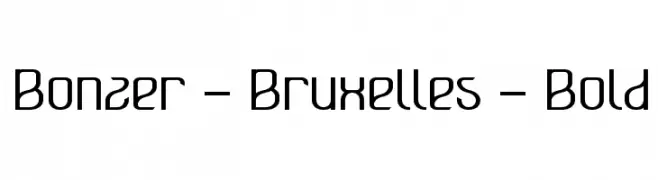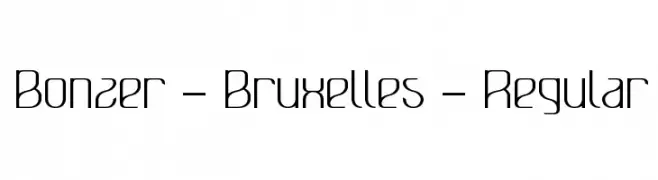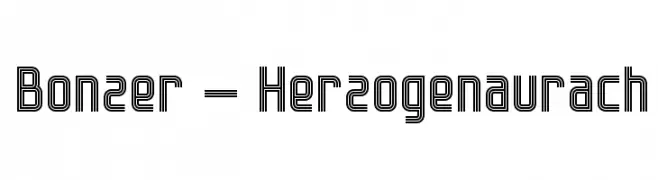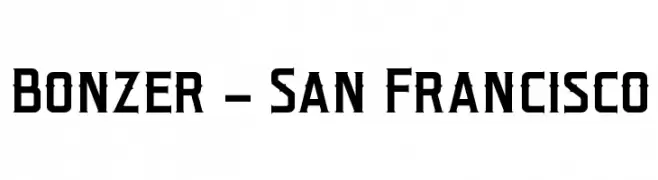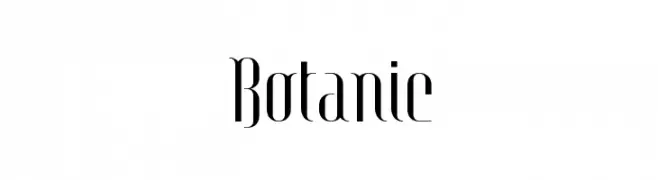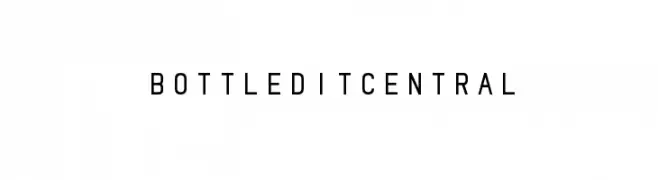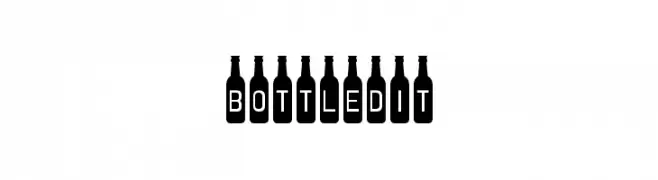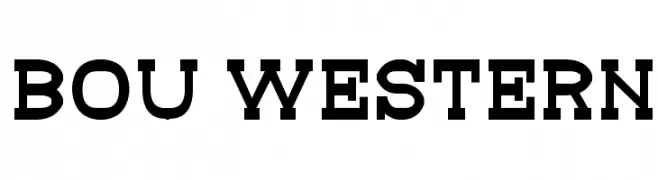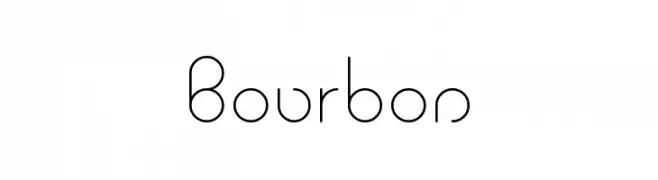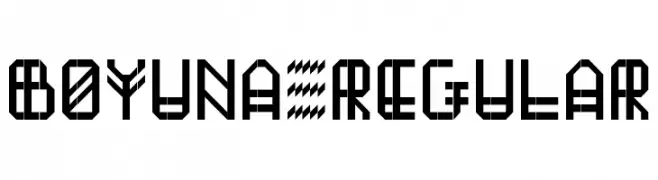
( Bonzer - Bonzer Herrbrecht - bonzer-concept.tumblr.com/ )
A bold, geometric font with a modern and balanced design.
( Bonzer - Bonzer Herrbrecht - bonzer-concept.tumblr.com/ )
A modern, geometric font with sleek, rounded edges and consistent proportions.
( Bonzer - Bonzer Herrbrecht - bonzer-concept.tumblr.com/ )
A multi-line, geometric font with a bold, modern aesthetic.
( Bonzer - Bonzer Herrbrecht - bonzer-concept.tumblr.com/ )
A bold, geometric font with sharp angles and a strong, modern presence.
( Christophe Alglave - www.christophealglave.com )
A modern, elegant font with high contrast and slender letterforms.
( Chequered Ink - chequered.ink/ )
A playful font with characters inside bottle shapes, offering a fun and unique style.
( Chequered Ink - chequered.ink/ )
A clean, modern sans-serif font with uniform strokes and balanced spacing.
( Bou Fonts - Agustín Bou )
Bold slab serif font with a Western, vintage style.
( Bayley Design - William Bayley - behance.net/bayleydesign www.freshcomfonts.co.uk/william-suckling-22-c.asp )
A modern, geometric font with minimalist curves and straight lines.
( Aday Falcón - www.artplatanao.com )
A bold, geometric font with angular lines and a futuristic style.